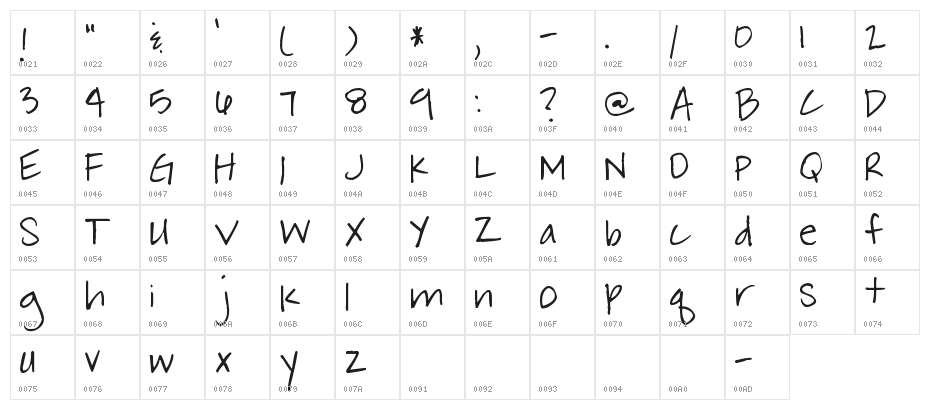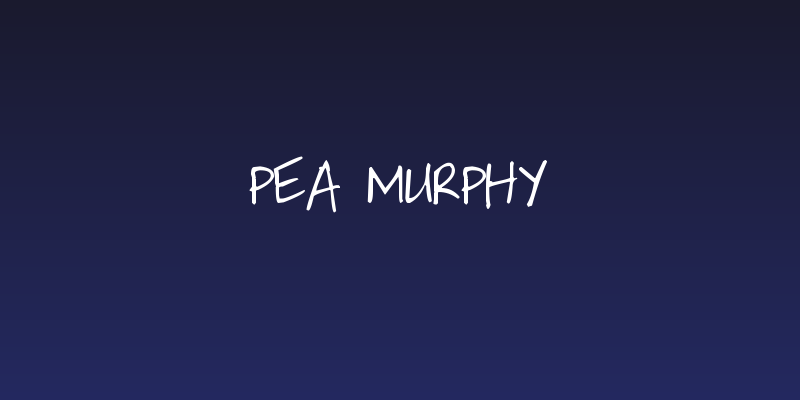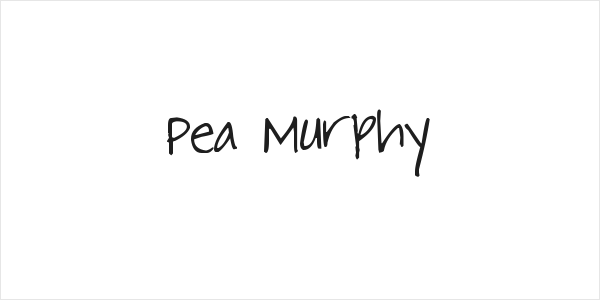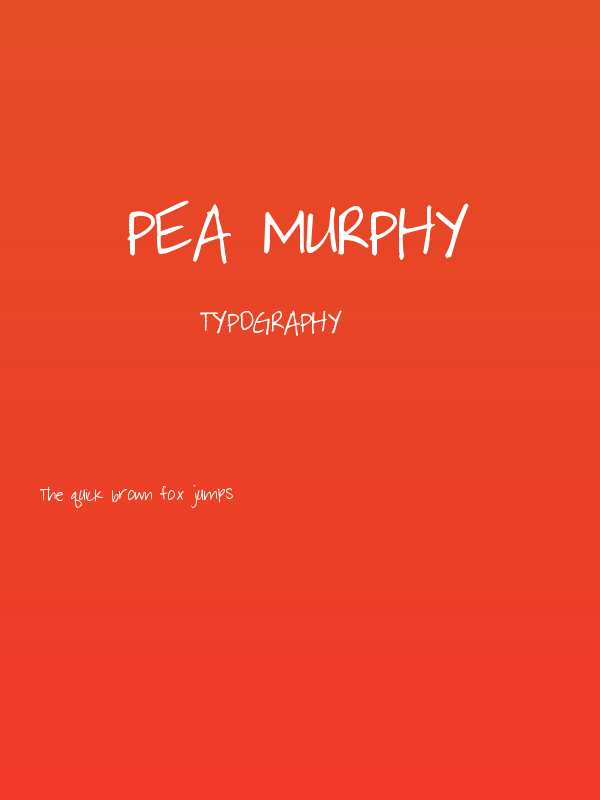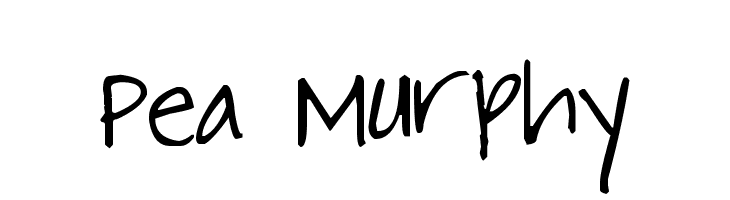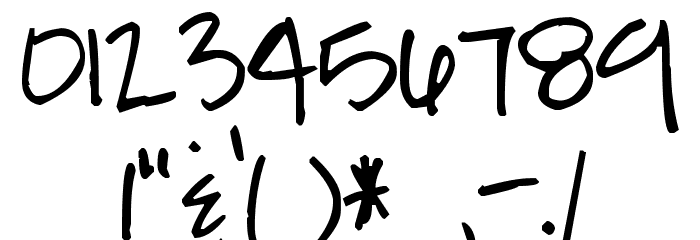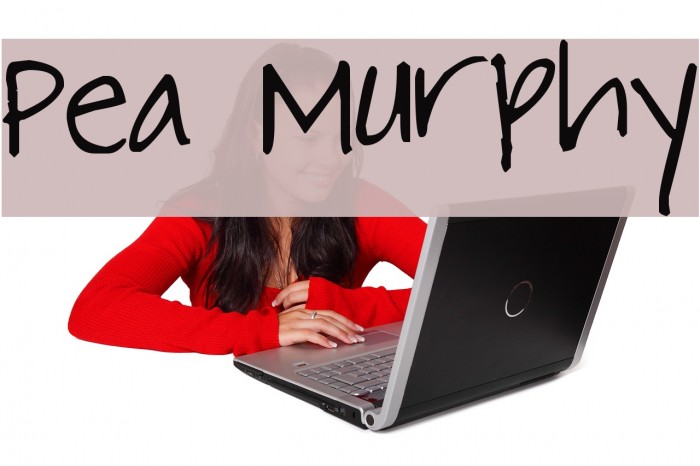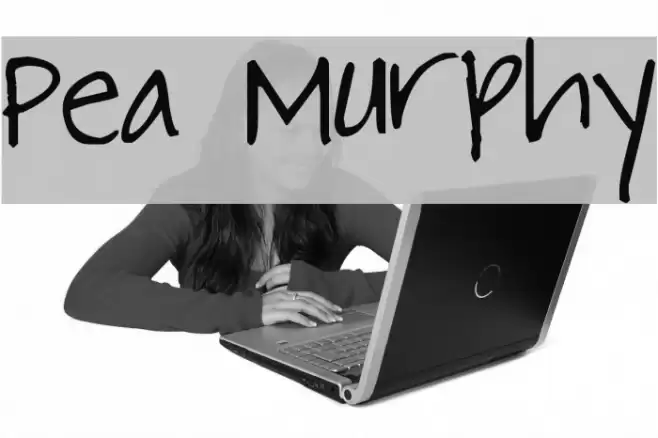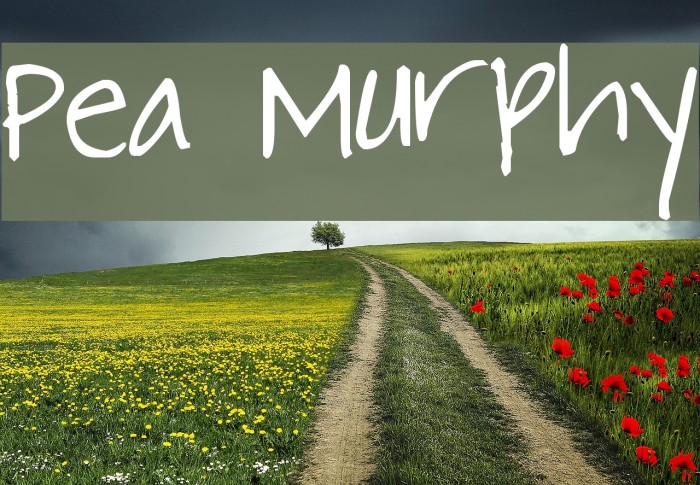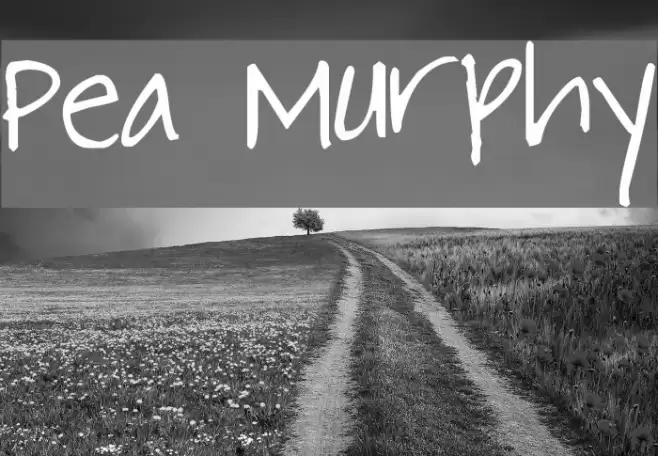
Pea Murphy Font
Pea Murphy Description
This font exudes a playful and casual handwritten style, characterized by its loose and informal strokes. The letters are unevenly sized, adding to its charm and authenticity, reminiscent of a personal note or doodle. The uppercase and lowercase letters maintain a consistent flow, while the numbers and special characters integrate seamlessly into the overall design. Its organic and spontaneous appearance makes it ideal for projects that require a personal touch or a sense of whimsy.
| Overall Style | Casual, Playful |
| Use Case | Logos, Invitations, Informal Text |
| Proposed Projects | Ideal for greeting cards, personal blogs, children's books, or any project needing a whimsical, personal touch. |